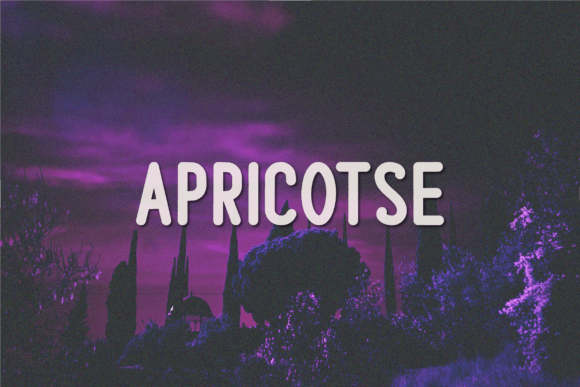
Journey into the world of Apricotse, a spirited and playful all-caps sans serif font, crafted by the talented minds at Becraft. This typographic masterpiece beckons you to embrace your creative flair and add a dash of whimsy to your designs, whether you're crafting personalized cards, embarking on digital design escapades, or captivating your audience with presentations.
Apricotse's charming personality shines through its quirky and carefree style, making it the perfect companion for expressing your individuality. Its playful nature lends itself effortlessly to a myriad of creative endeavors, bringing a smile to the faces of those who encounter your designs.
With Apricotse as your font of choice, the possibilities are limitless. Dive into the world of crafting, where your imagination takes center stage, and Apricotse becomes your trusty sidekick, transforming ordinary projects into extraordinary expressions of your creativity.
Embrace the digital realm with Apricotse, where pixels dance and colors ignite. Let your designs captivate audiences with Apricotse's infectious energy, leaving a lasting impression that resonates with your viewers.
Unleash your inner storyteller with Apricotse, crafting presentations that transport your audience to realms of enchantment and intrigue. Its playful spirit adds a touch of magic to your words, ensuring your message is delivered with a captivating flair that keeps your audience engaged and enthralled.
Welcome Apricotse into your creative arsenal and embark on a journey of boundless imagination. Let its quirky charm infuse your designs with a unique personality that sets them apart from the ordinary. Discover the endless possibilities that await you as you weave your creative magic with Apricotse, the font that ignites your imagination and leaves a lasting impression on all who encounter it.